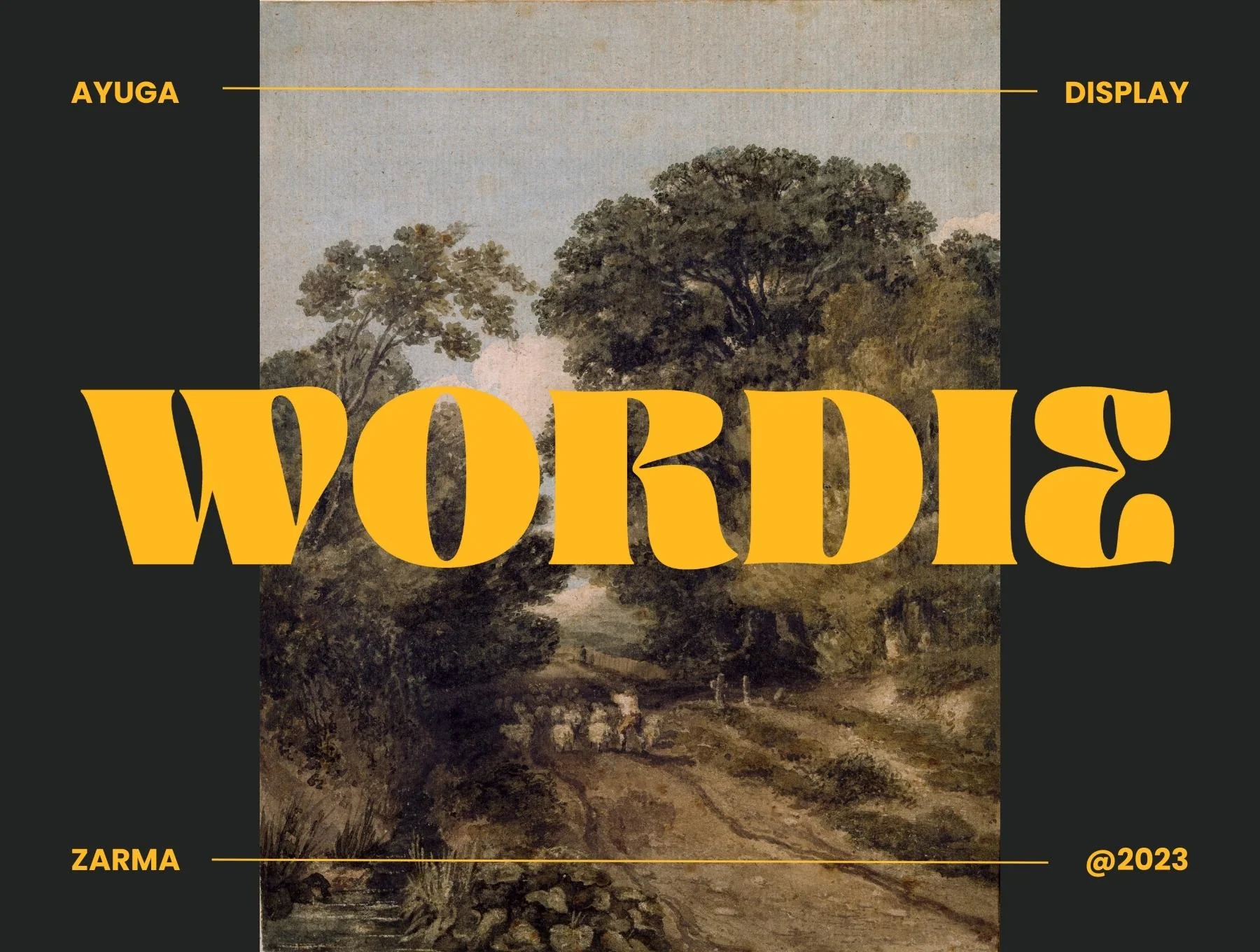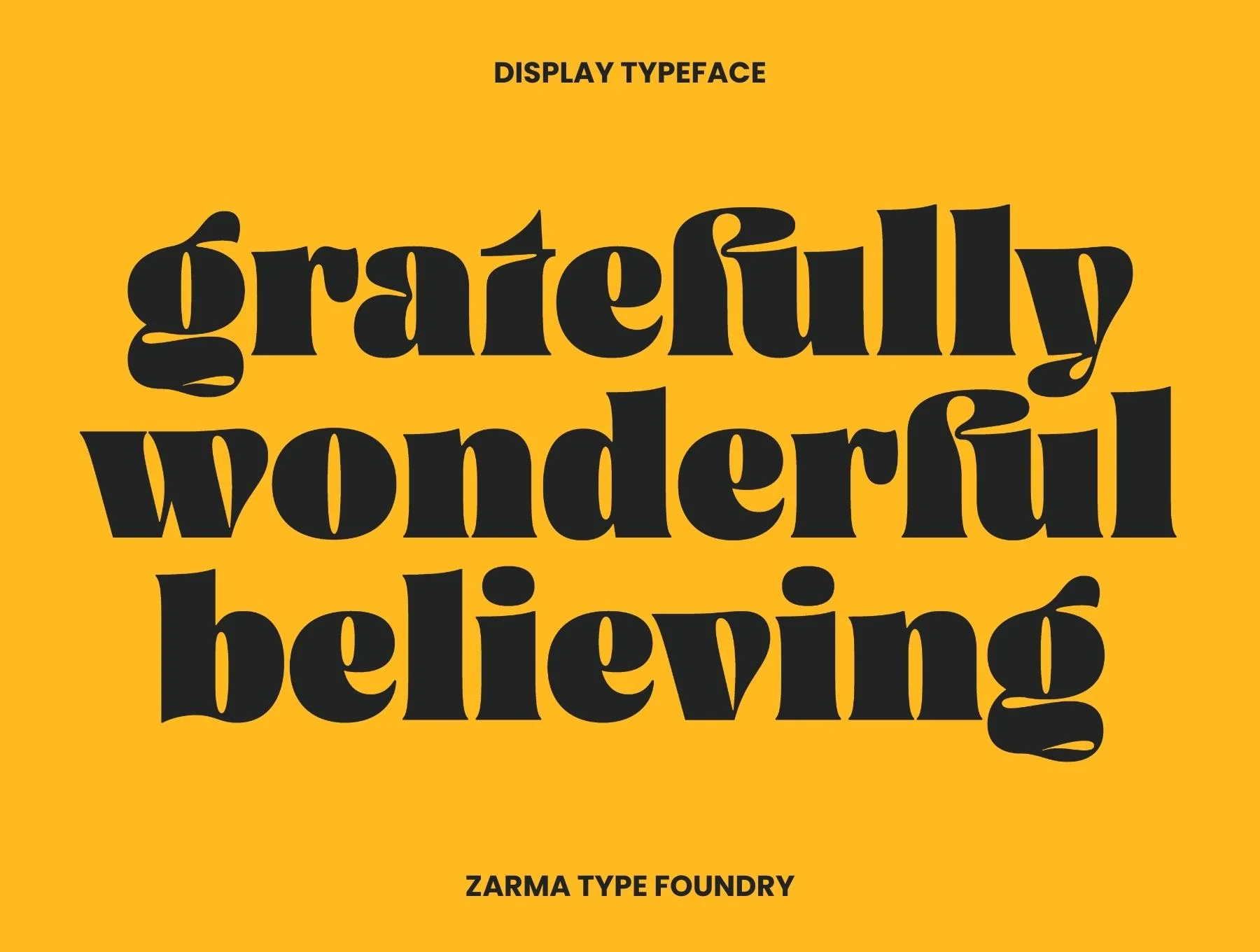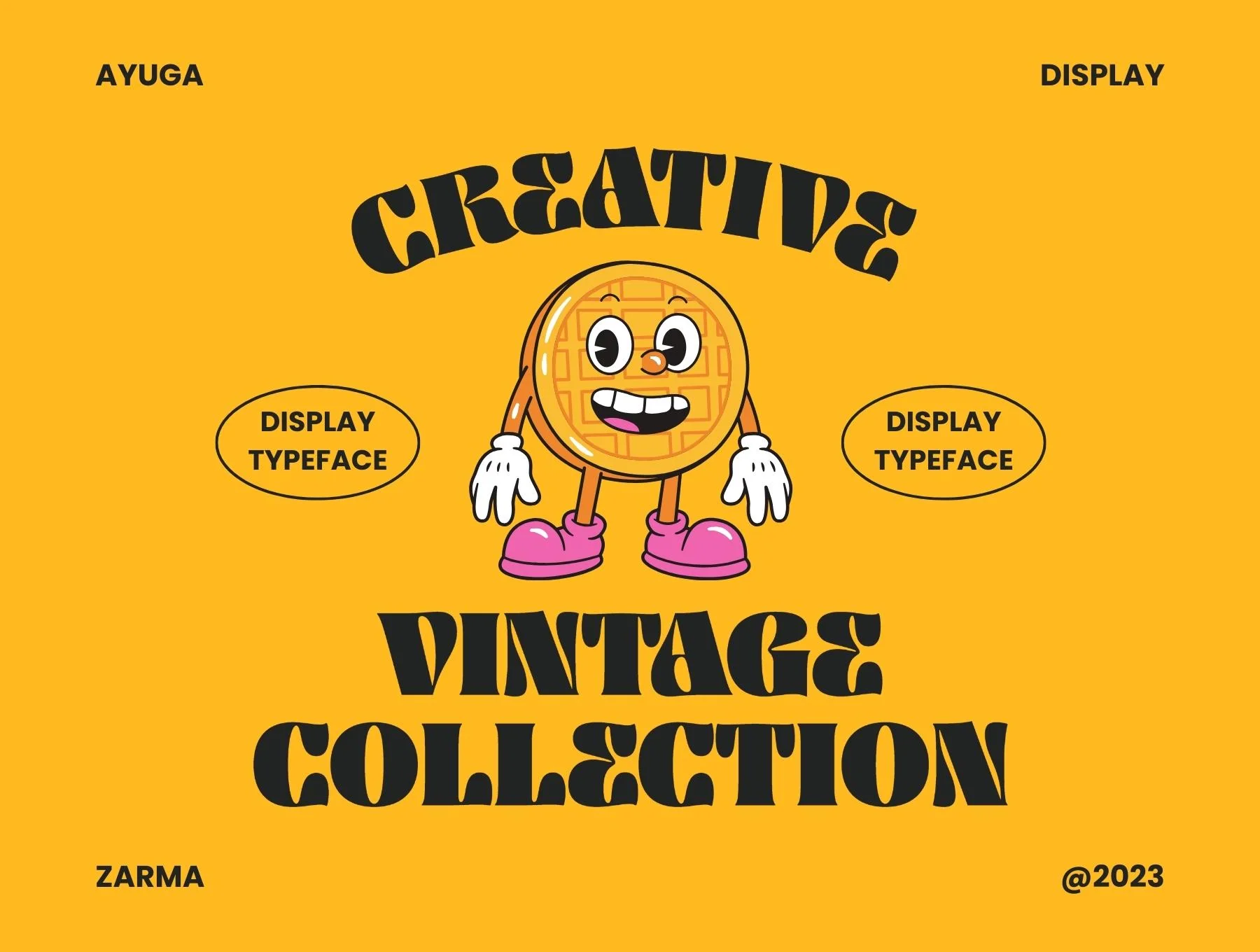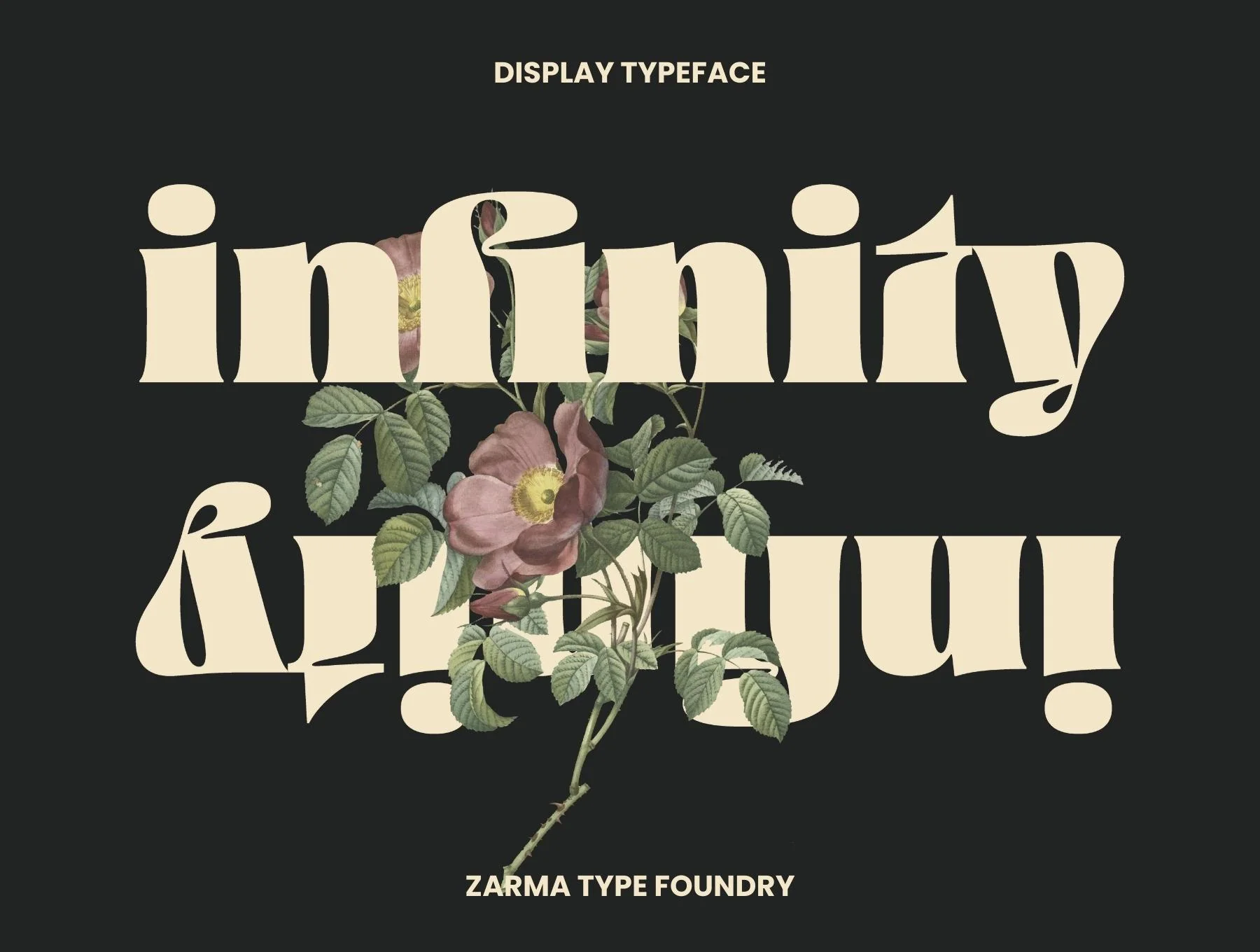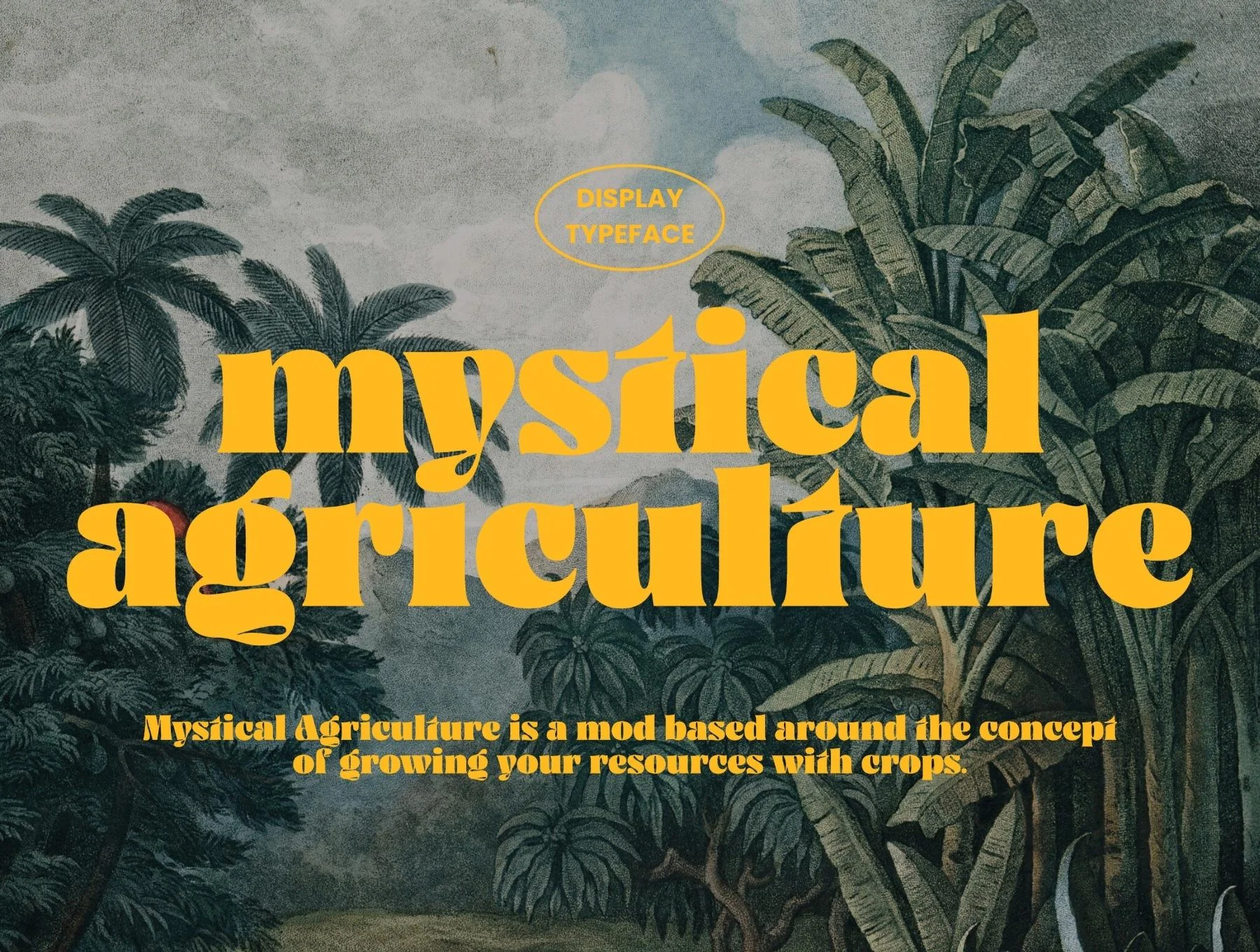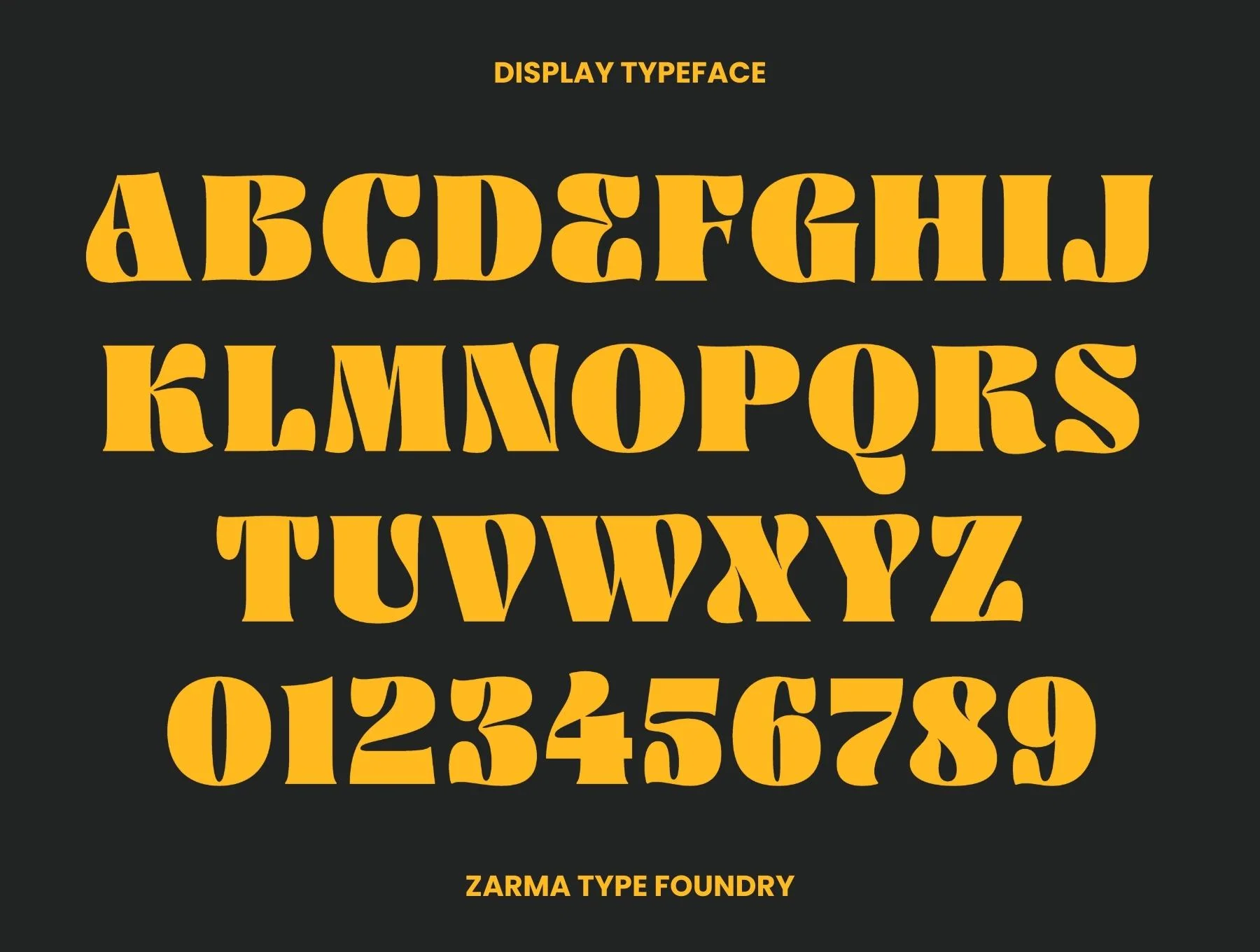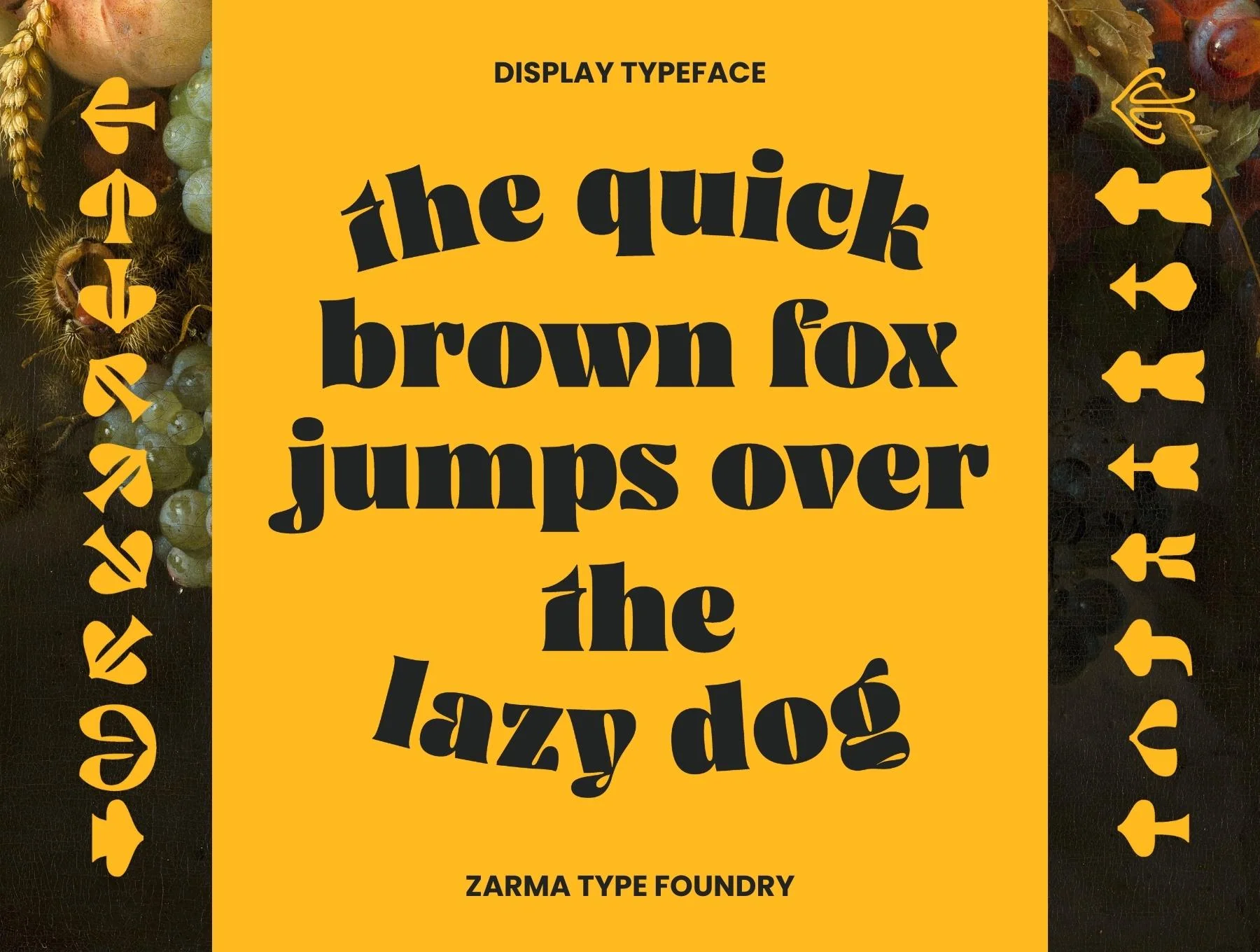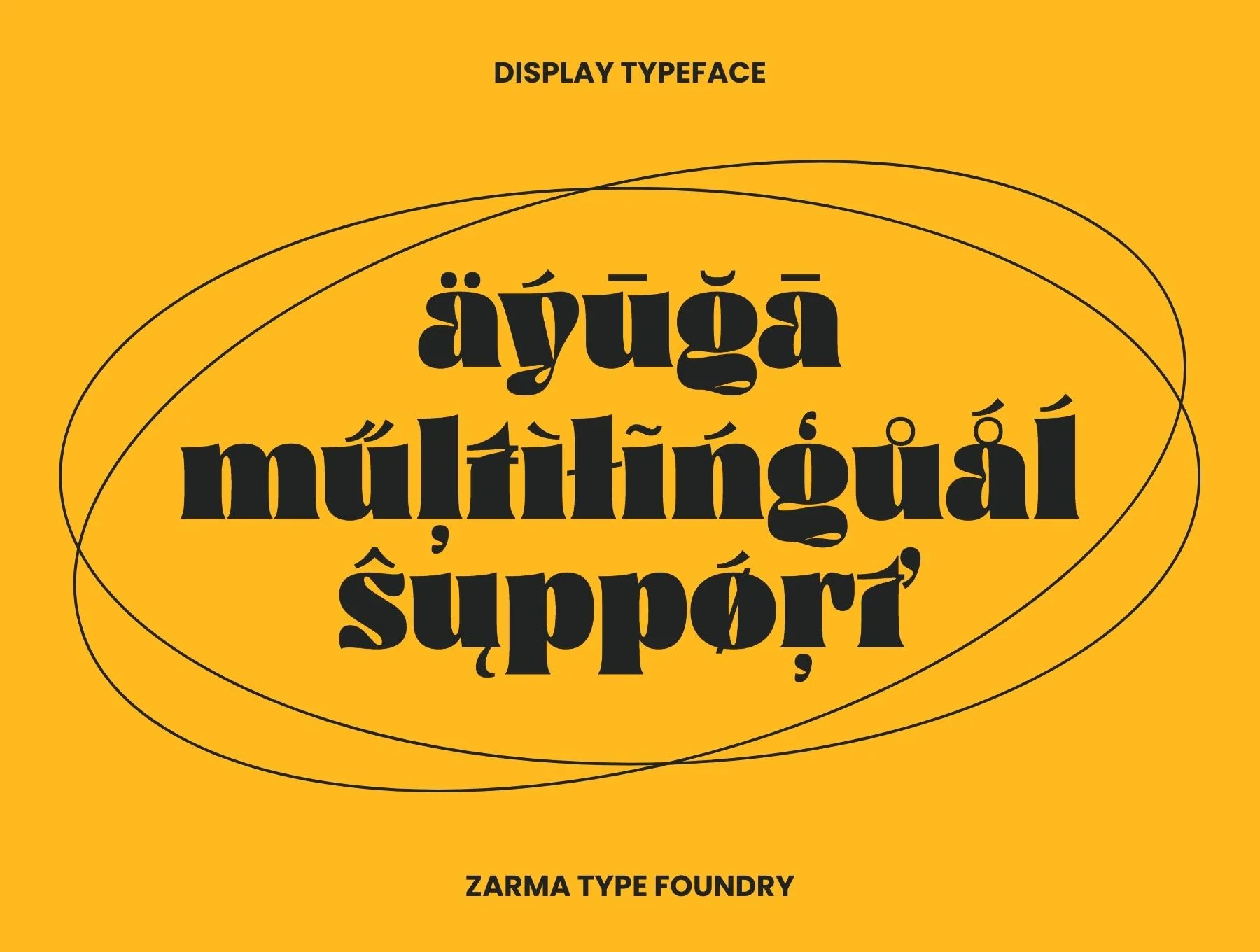
Ayuga Font
Contemporary Display Font
Capital letters, small letters, numbers, and punctuation marks
Multilingual character support
Vintage psychedelic blend
Make your work pop with Ayuga, a chunky display font blending retro flair with psychedelic energy. Its heavy, confident shapes deliver instant visual impact for logos, branding, posters, and other creative projects, adding vintage character to modern designs.